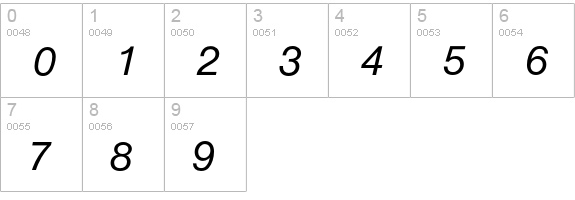
Olnova-MediumIta Font Details
Introducing Olnova-MediumIta font, a stunning and versatile typeface designed to captivate and elevate your design projects. With its elegant and sleek appearance, Olnova-MediumIta strikes the perfect balance between modern sophistication and classic charm. This font is ideal for a wide range of design applications, from branding and advertising to editorial and web design. The sleek and stylish curves of Olnova-MediumIta exude a sense of luxury and refinement, making it the perfect choice for projects that require a touch of sophistication. Whether you're creating a logo for a high-end brand or designing an elegant invitation, this font is sure to make a lasting impression. And the best part? Olnova-MediumIta is available for free download at FontsMarket.com. Yes, you read that right - this premium font can be yours at no cost, allowing you to add a touch of elegance to your projects without breaking the bank. Don't miss out on this opportunity to elevate your designs with the exquisite Olnova-MediumIta font. Download it today and start creating stunning visuals that will leave a lasting impact.